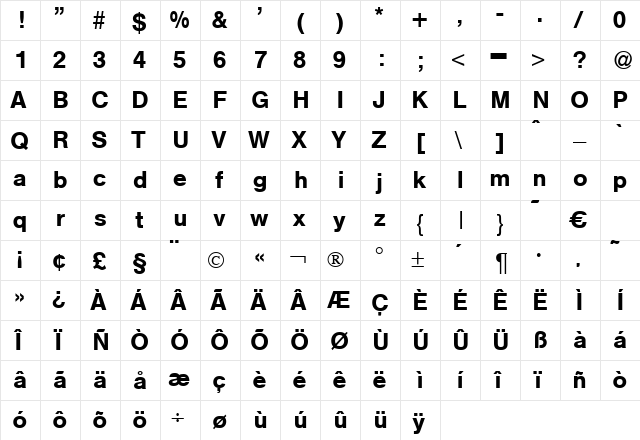
Helmet Bold
Design Context for Helmet Typeface
Helmet offers clean, dependable letterforms without strong stylistic allegiance, making it a practical choice for designers who need flexibility. The heavy weight commands attention and anchors typographic hierarchies.
Pro Tip: Use Helmet in both headline and body roles to test its range before committing to a single application.